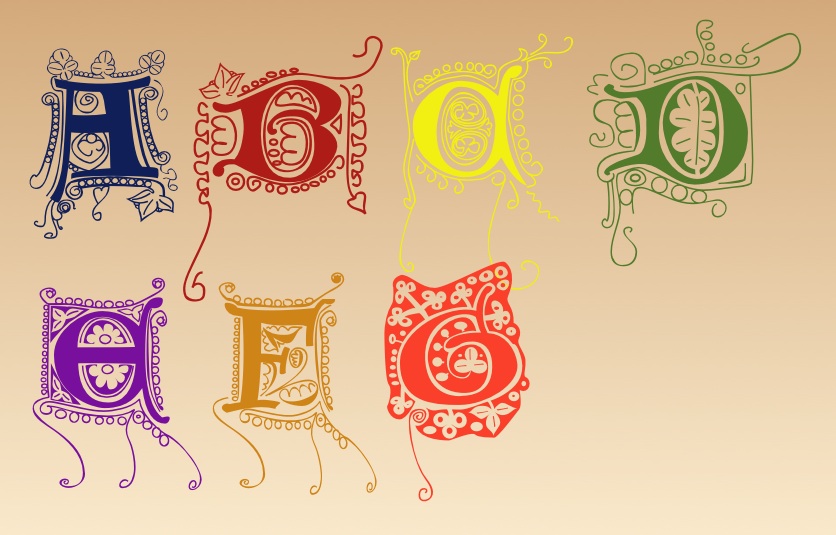
The Luttrell Psalter is a book of psalms and prayers made around 1240 for the Luttrell family of Lincolnshire, well-known for its many and fascinatingly-detailed scenes of rustic life. David has started to make a font from the illuminated capitals and decorative motifs. The letters are made in two layers, the capitals give the basic filled-in letters, which you can also use on their own, and if you like you can add the decoration in another colour or with another effect by adding the lower case letter in another layer underneath. All 26 latin letters are done, and the ornaments from A to G: do download the font to try it: and do let us know what you think! |